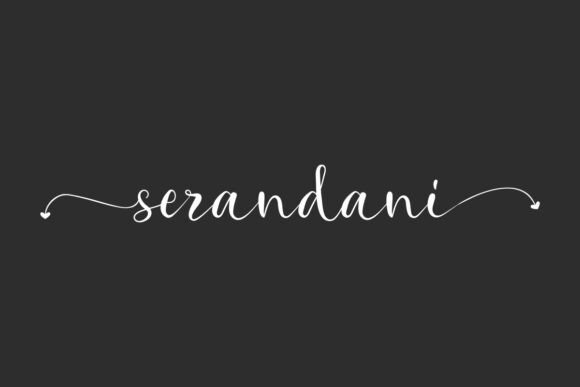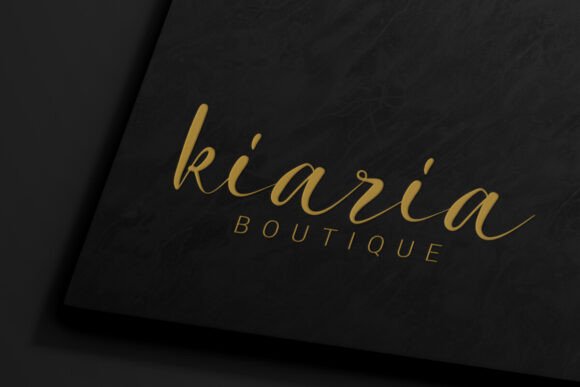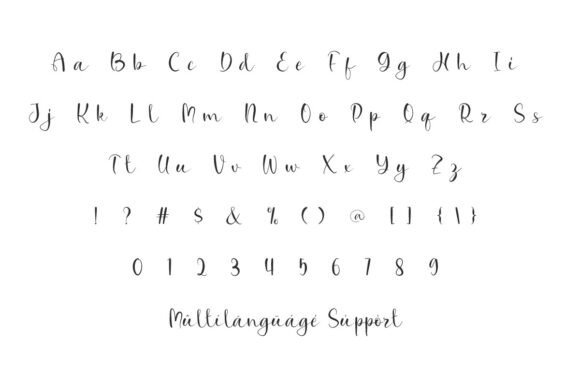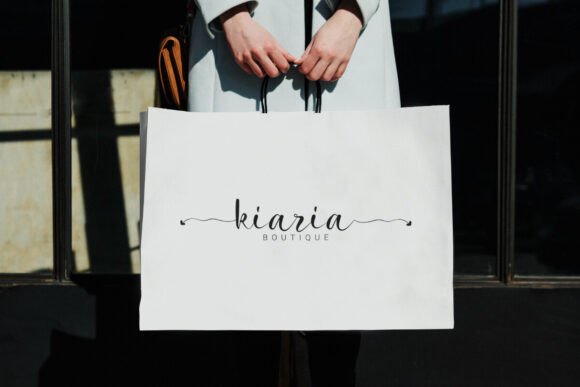
Serandani Font
About the Serandani Font
Experience the unique personality of Serandani Font, a font designed for impact. Serandani Font is a lovely script font with a calligraphy style. You can try this font for various beauty content designs because it will add sweetness as a compliment. It will be suitable for many industries, such as advertisement, beauty products, café, event or wedding organizers, fashion, florists, furniture, jewelry, perfume, printing, publishing, spa, and more!
Serandani Font Usage Examples